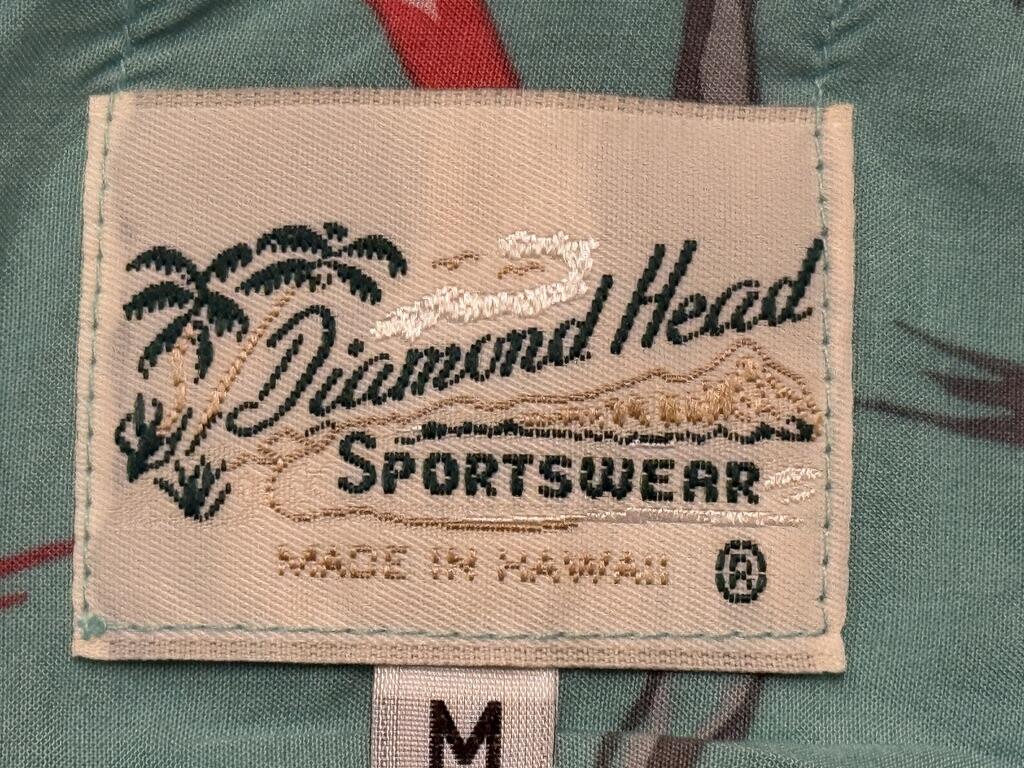
1970's Aloha Shirt Logo
I'm having trouble identifying the following script font with recreating a logo. The word, "Diamond Head" Any help would be greatly appreciatedA48DA935-DF76-4697-BB9A-B71C22441697_1_105_c.jpg
The two a|s and two d|s do not match one another, and see how the a in Head is so much larger than the e next to it? What you posted looks to be an embroidered version of a hand-lettered logo, not something created using a typeface used for printing.